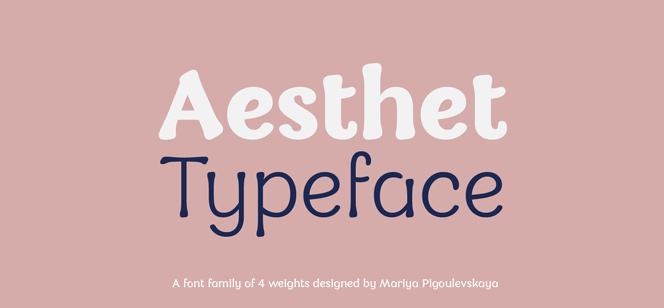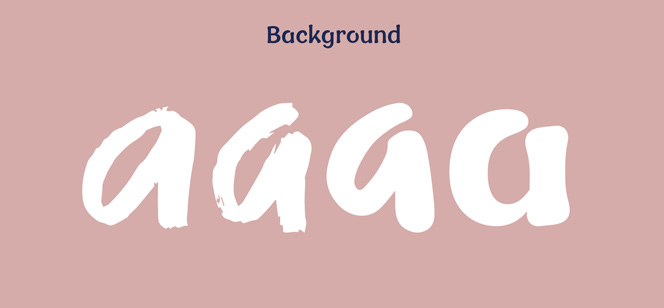
Aesthet
Aesthet is a new modern sans serif typeface family designed by Mariya Pigoulevskaya of The Northern Block type foundry. The inspiration behind the font comes from Mariya’s fascination of the natural and unceremonious ways of the rural communities as well as their rustic simplicity. So she set about creating a font family that would reflect her idea of the country living but at the same time would offer everything that is required from a modern sans serif. And the way she handled everything was just remarkable! Her project went through several different stages – from the initial usage of the ink and brush technique, through the hand refinement to the digitalization at the end. The final product is an elegant clean sans serif with script elements that has a distinctive identity and unique personal appearance. The fonts work perfectly in display sizes and could be applied with a great result in headlines but can also be used successfully in smaller sizes without hindering its great legibility.
Typically for a contemporary font family, Aesthet offers multiple choices which allow the users to create texts that will best reflect their personal taste. It comes in 4 weights – Light, Regular, Medium and Bold. Also a lot of OpenType features are provided as well as 380 characters and manually edited kerning.
Aesthet is the new addition in the long line of successful font families that have been designed by Mariya Pigoulevskaya and released by the Newcastle based The Northern Block type foundry. This typeface fills the pattern of the foundry’s works as it emphasizes on modernist and clean scripts that are designed to suit the contemporary needs. However, Mariya’s and the foundry’s founder Jonathan Hill’s individual approach to any separate project is very careful as they aim to achieve a high degree of unique personality in any of them. Here are other examples of their prolific joint work: Merel, Tautz, Acrom, Schar, Loew.